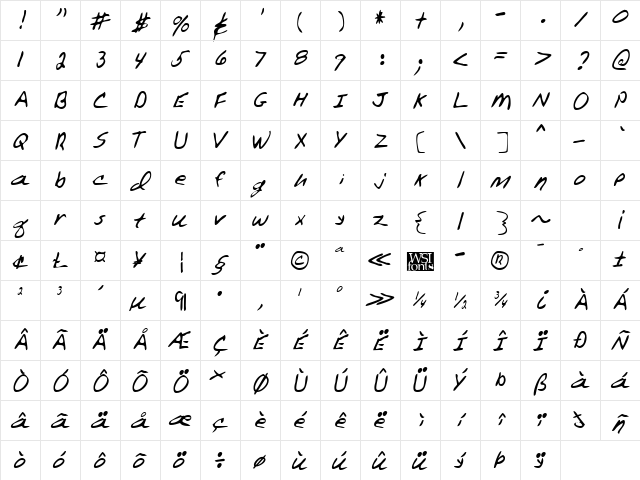
FrostysHand Regular
Design Context for FrostysHand Typeface
FrostysHand flows with the natural rhythm of handwritten lettering, making it ideal for designs that call for warmth and personal expression.
Font Pairing: Combine FrostysHand with a simple geometric sans for maximum contrast — the tension between flowing curves and clean structure is a classic typographic pairing.
Pro Tip: Use FrostysHand for short runs of text — names, titles, or taglines. Extended body copy in script faces tires the eye quickly.